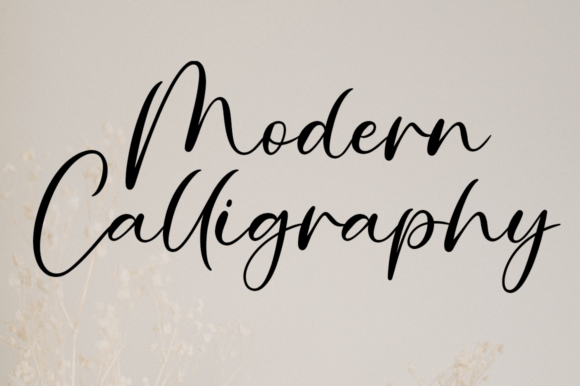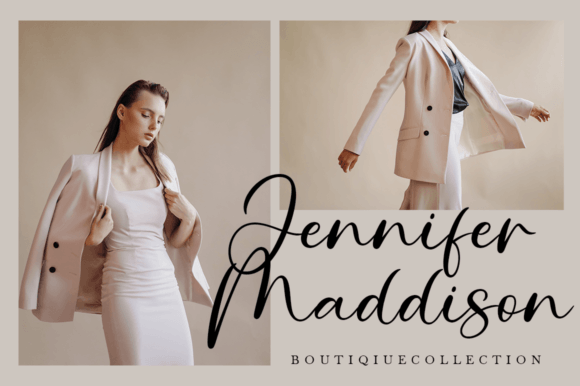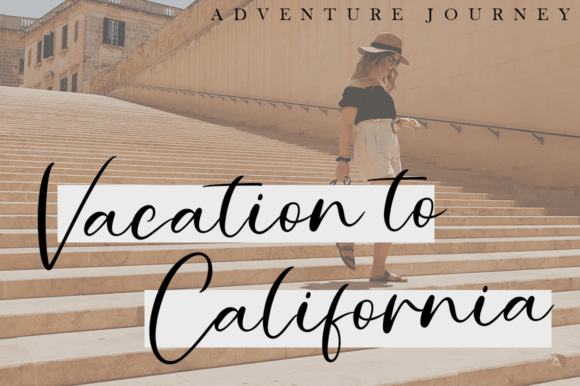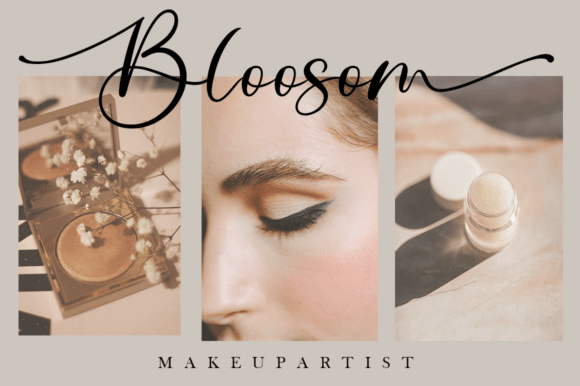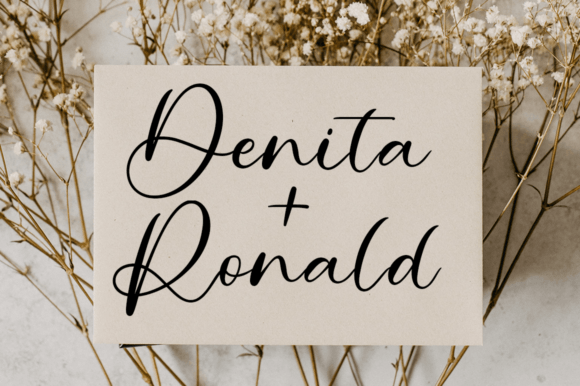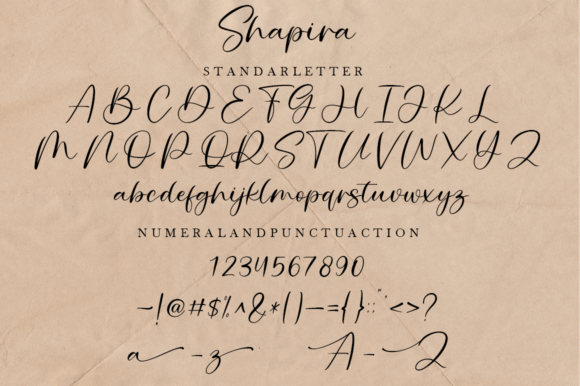
Introduction to Shafira Font
Shafira is a unique and elegant handwritten font.
It looks beautiful on a variety of designs requiring a personalized style, such as wedding invitations, thank you cards, greeting cards, logos, and so on .
Key Features of Shafira Font